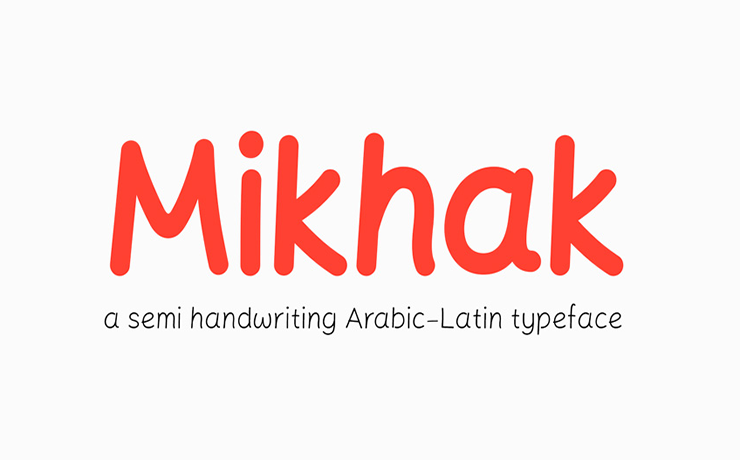
Mikhak Font is a simple monoline semi handwriting Arabic-Latin typeface that’s easily readable and quite familiar. It looks good on social media campaigns, quotes, posters, and everything in between.
All the characters are handmade which gives a natural feeling with its cool edges and diverse line thickness. Therefore, you can get a decent natural flow throughout the font.
Her letters are unprofessional. Because if a designer makes it from any digital app, its characters are straight.
Style: | Handmade, Display, Monoline |
This font family offers six different versions including regular, bold, thin, etc.